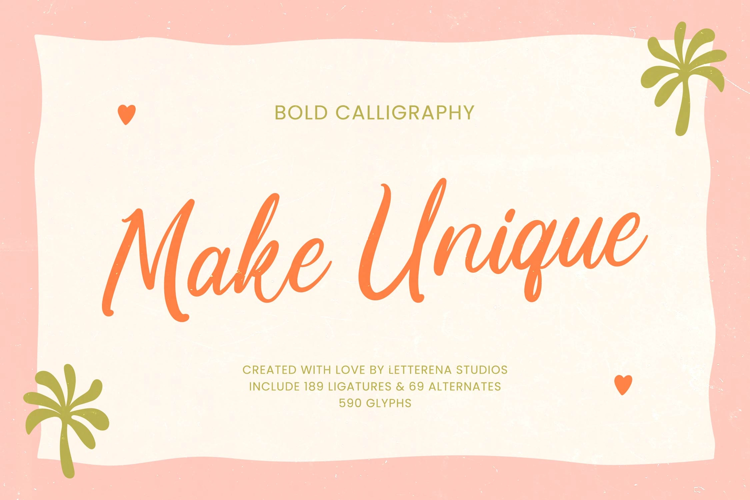
Make Unique Bold Calligraphy Font
Make Unique
Make Unique Italic
Make Unique - Bold Calligraphy Font , from Letterena, is a Luxury Script font, suitable for any projects such as: logos, branding projects, homeware designs, product packaging, mugs, quotes, posters, shopping bags, t-shirts, book covers, name card, invitation cards, greeting cards, label, photography, watermark, special events, and all your other luxury and beautiful projects that need a Luxury Script taste.
169 Ligature 69 Alternate & Swashes